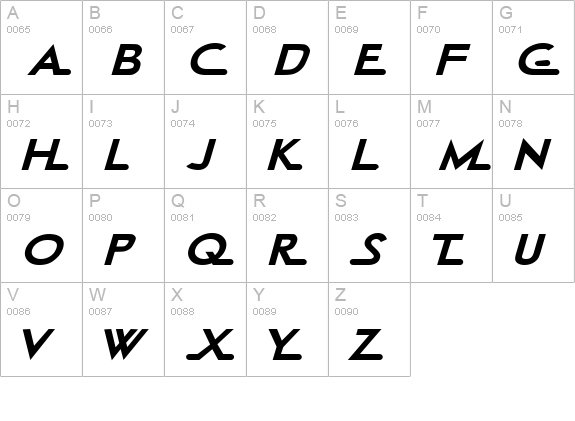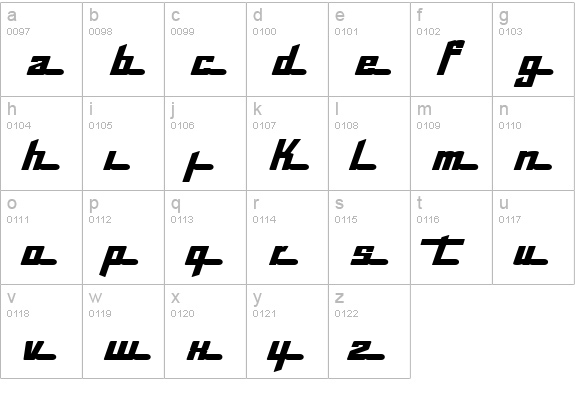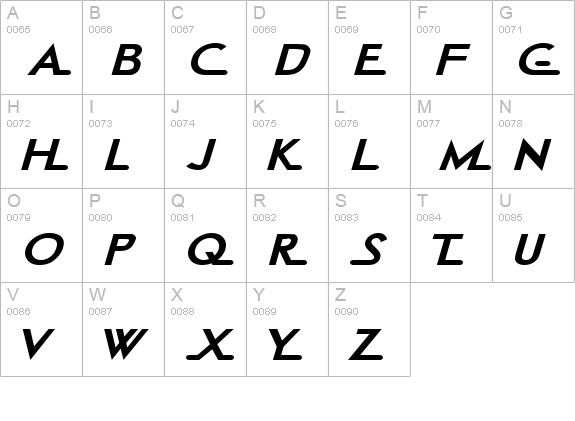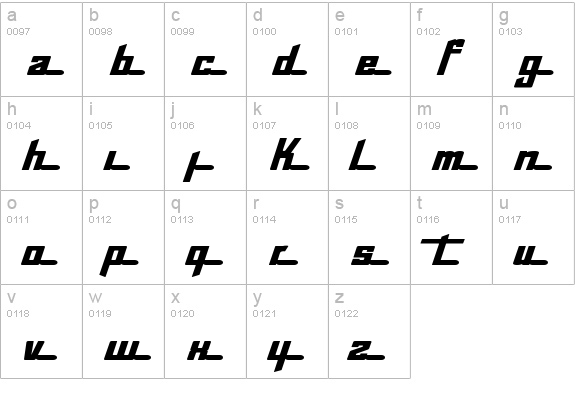
Continental Railway Font Details
The Continental Railway font captures the essence of vintage train travel with its bold, industrial-inspired design. This striking typeface exudes a sense of adventure and nostalgia, making it perfect for projects that aim to evoke a bygone era of railway exploration. With its strong, angular letterforms and unique character shapes, Continental Railway commands attention and adds a touch of retro charm to any design. What sets Continental Railway apart is not only its distinctive style, but also the fact that it is available for free download at FontsMarket.com. This means that you can easily add this eye-catching font to your collection without any cost, making it a valuable resource for designers looking to create standout visuals without breaking the bank. Whether you're working on posters, branding, or web design, Continental Railway offers a versatile and impactful option that is sure to impress. Download it today and embark on a typographic journey back in time with Continental Railway.